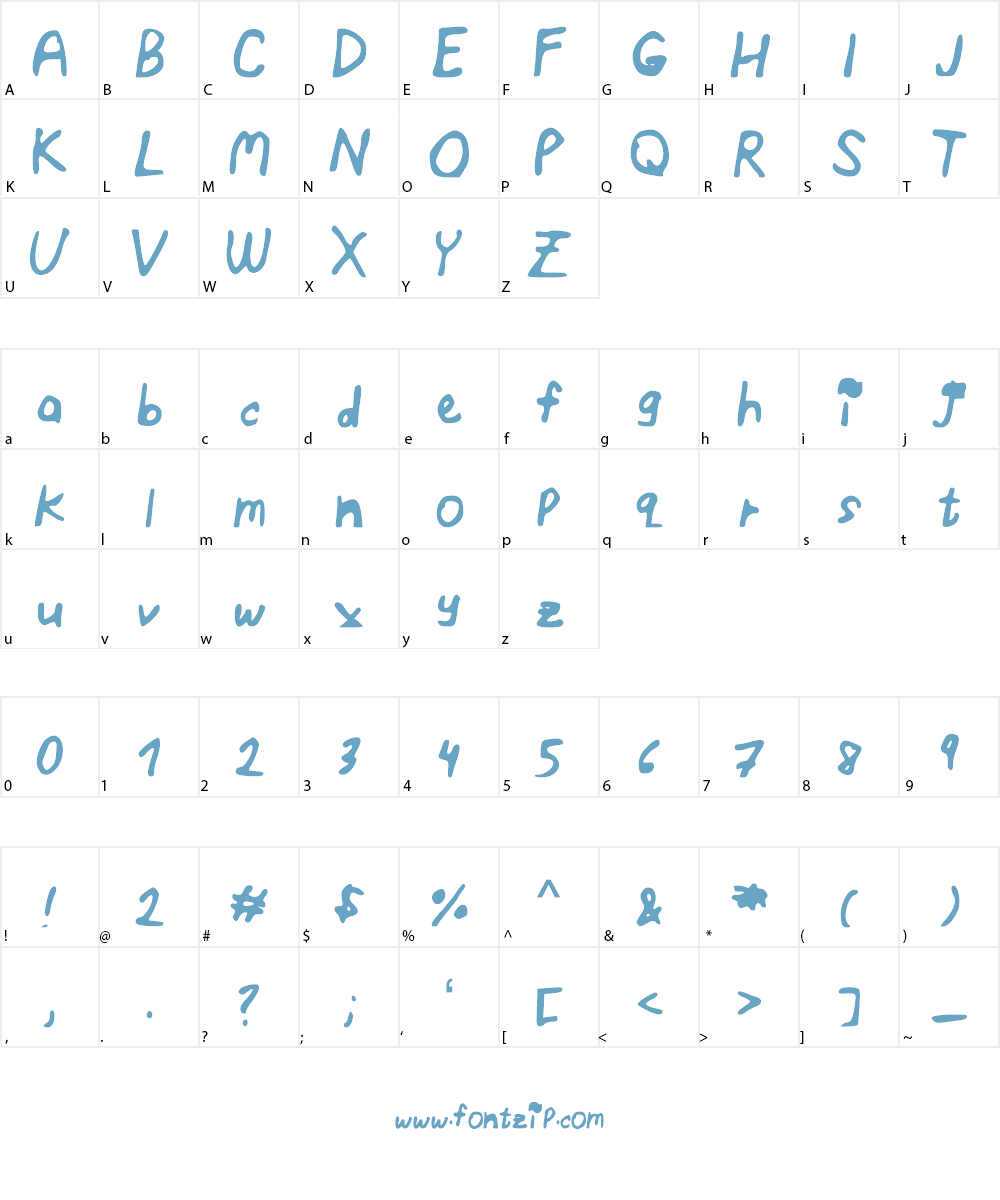
Here is my third font! It turns out to be better than my second font (if you know what I mean ;) ). Thanks for downloading my fonts! Double TY for applecinnamonpie10 (FontSpace user) who asked for a handwriting/spider font :) See you guys again next time!!! Bye! :D :D :D